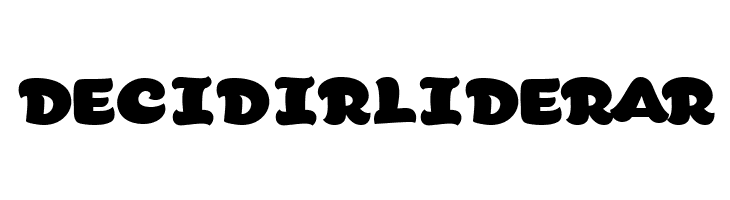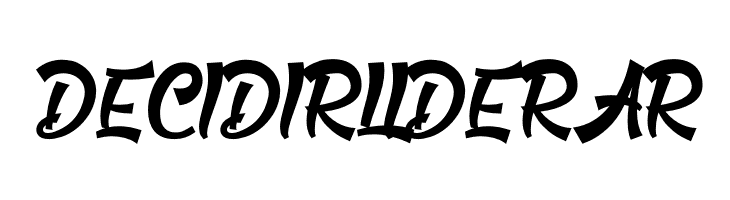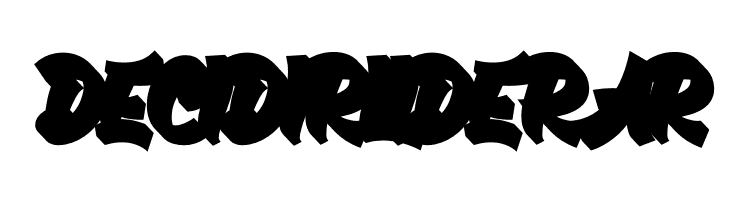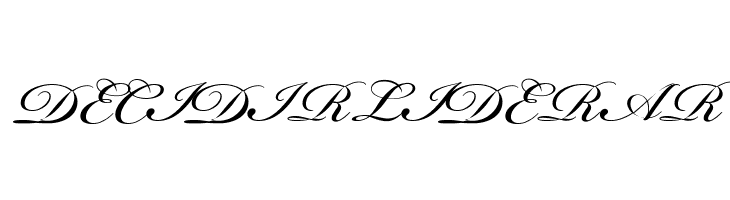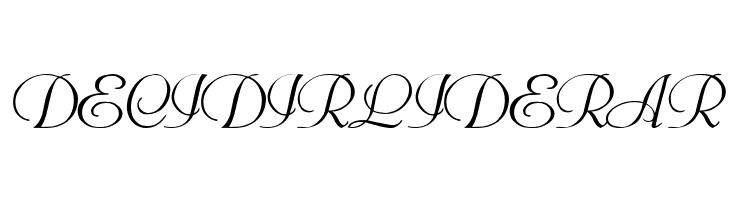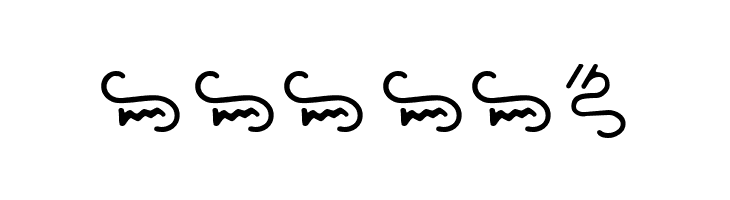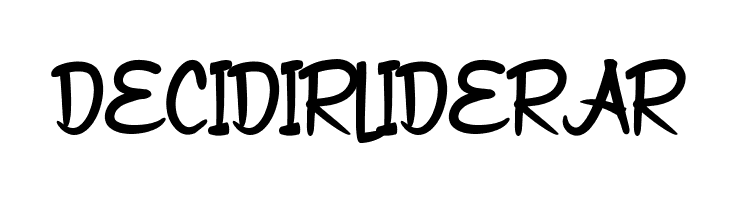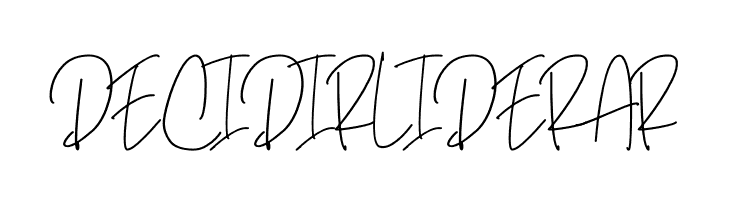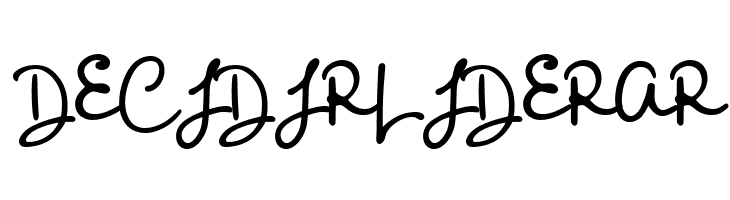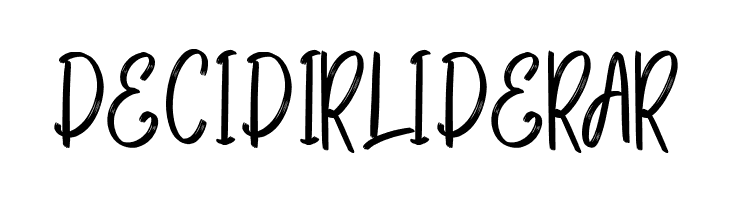
A lively, flowing script font with elegant, elongated letterforms.
A lively, cursive script font with interconnected characters and dynamic strokes.
A bold, playful script font with thick, rounded strokes and a whimsical style.
A bold, dynamic script font with sweeping curves and fluid strokes.
A bold, dynamic script font with a 3D extruded effect, perfect for impactful designs.
A dynamic, semi-bold script font with flowing, cursive strokes.
A lively script font with a fluid, handwritten style and moderate stroke contrast.